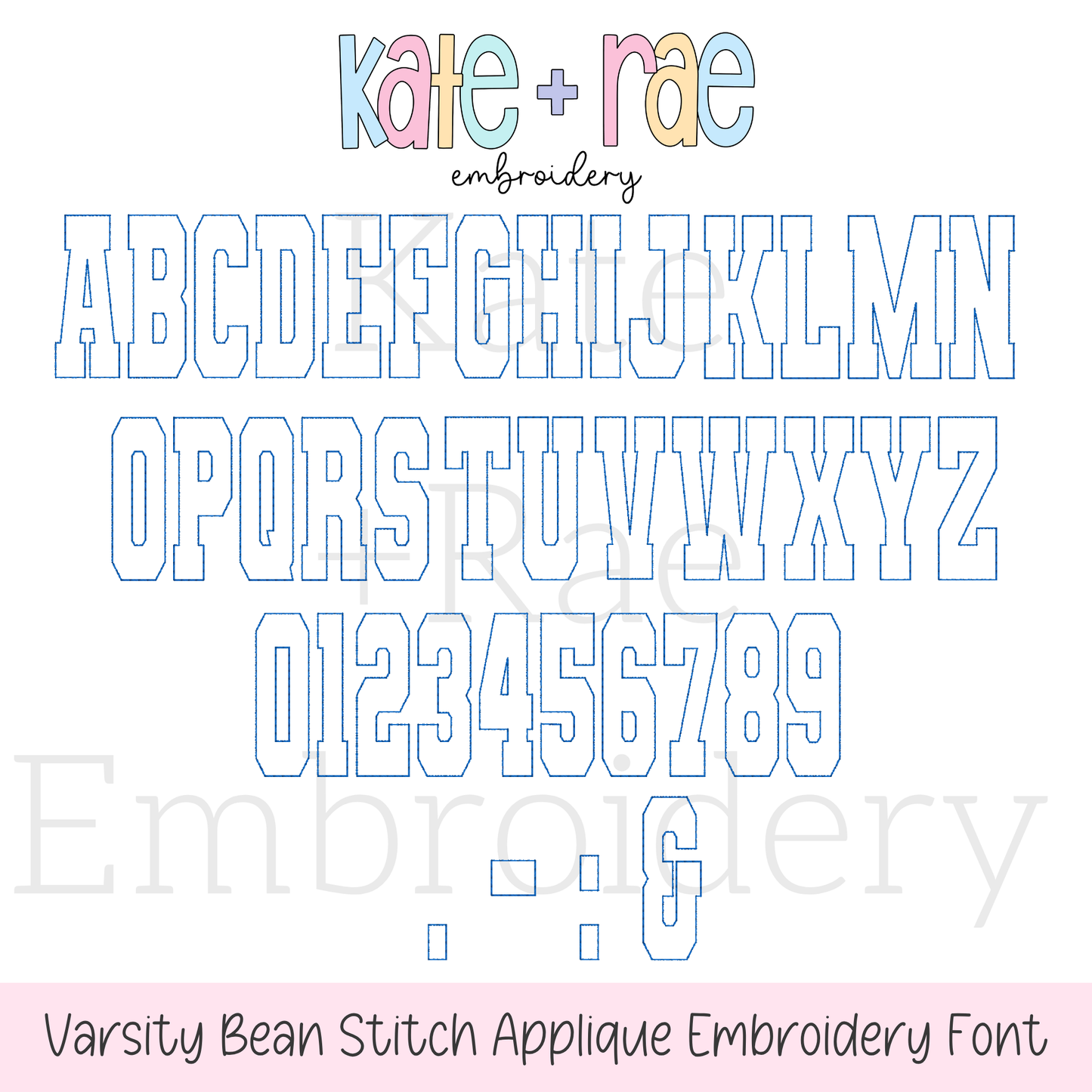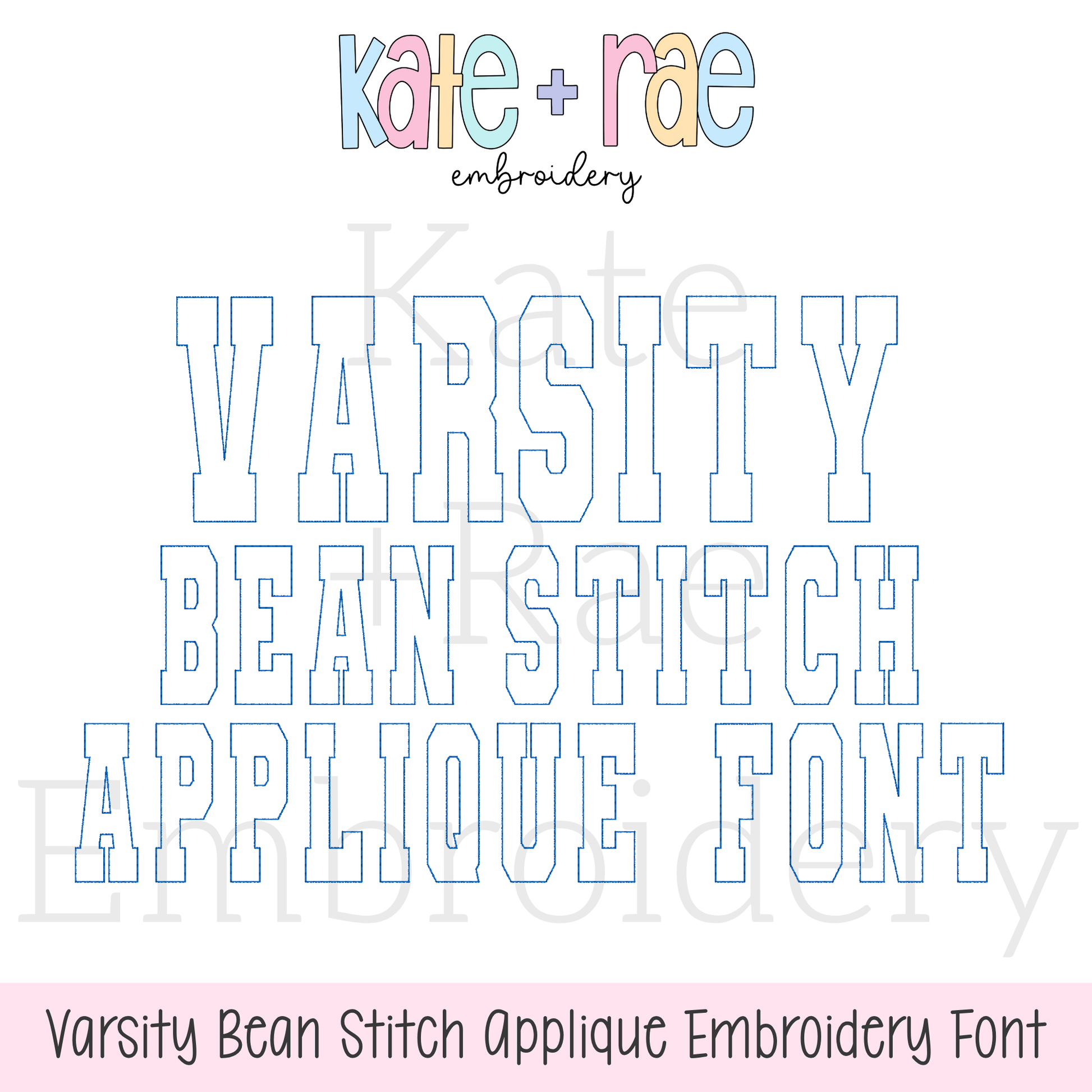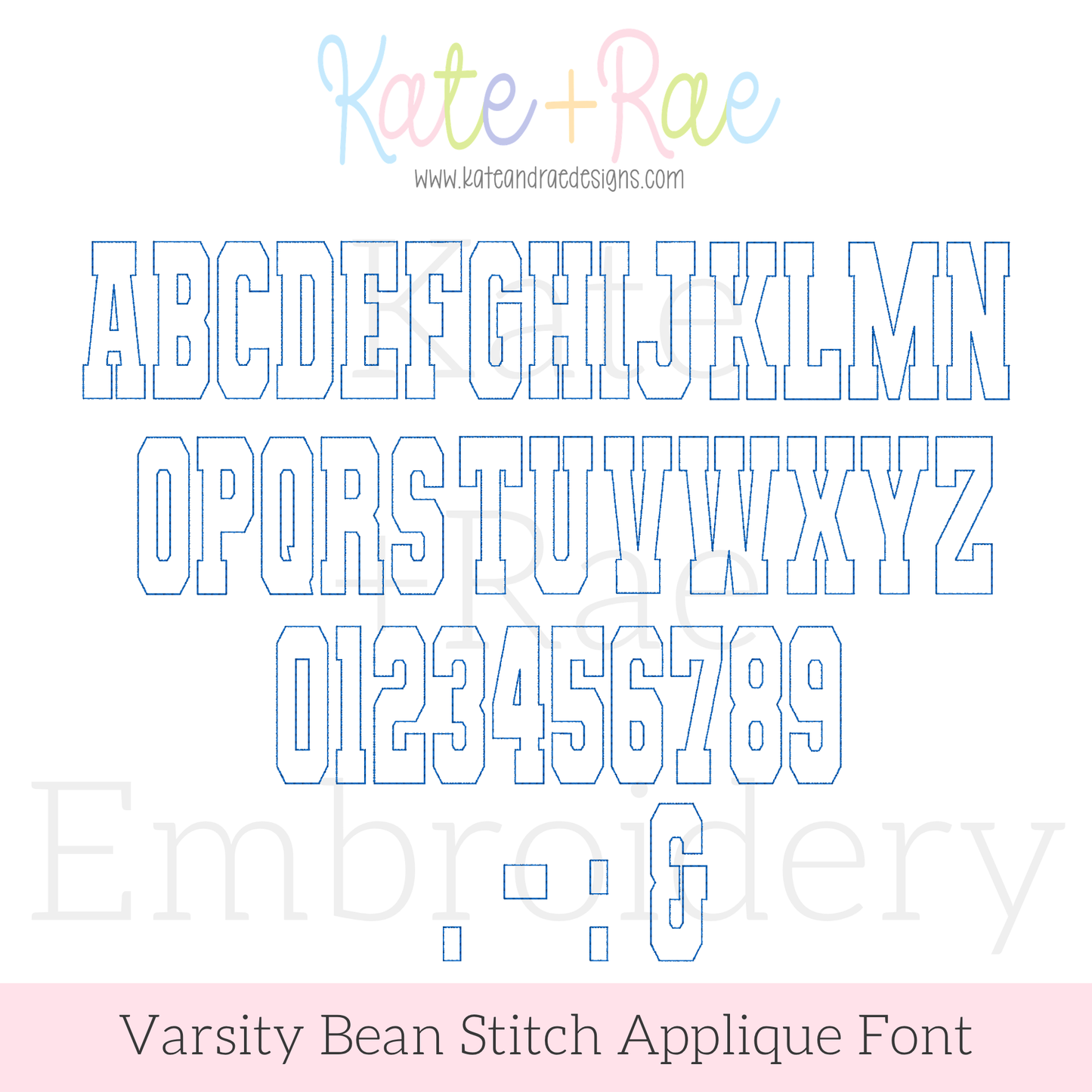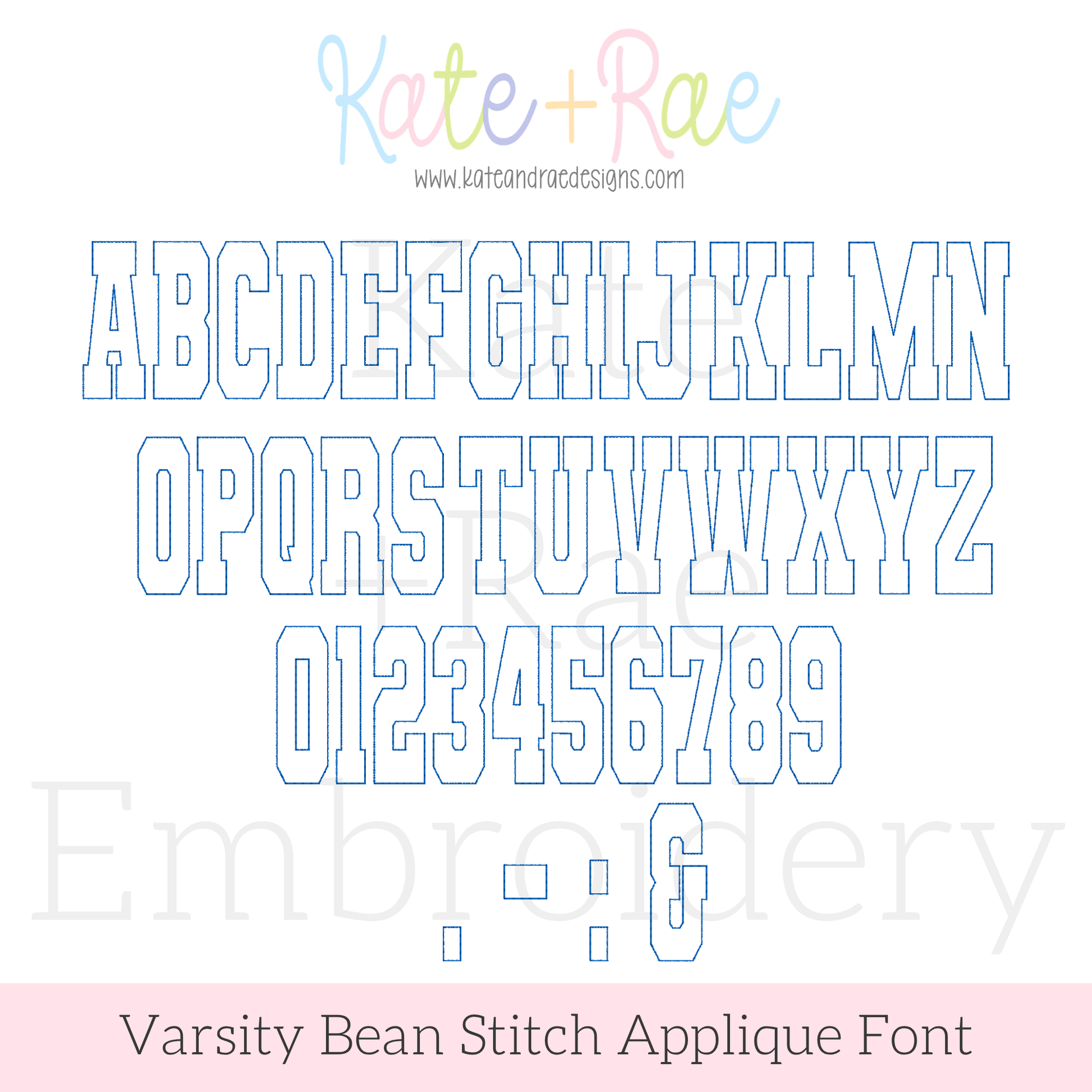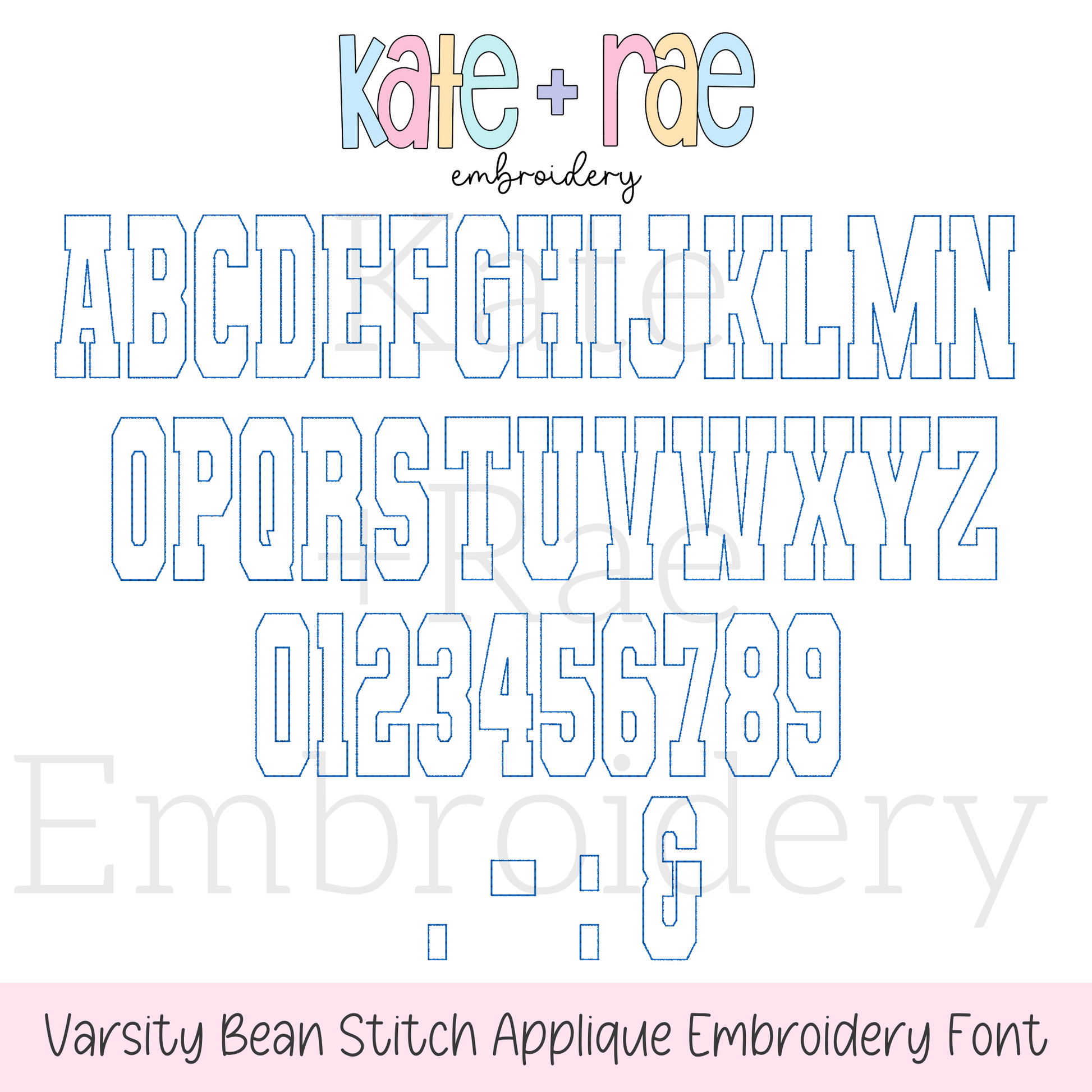
Varsity Bean Stitch Applique Embroidery Font
Stitch in style with the Varsity bean stitch applique font! It's perfect for sports gear, school spirit wear, and personalized embroidery projects.